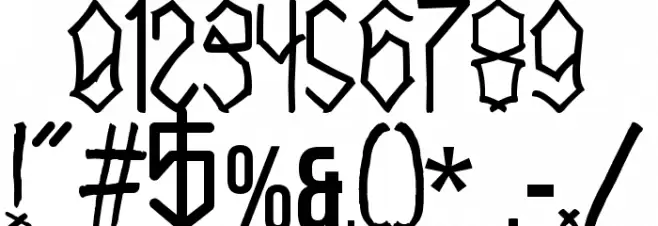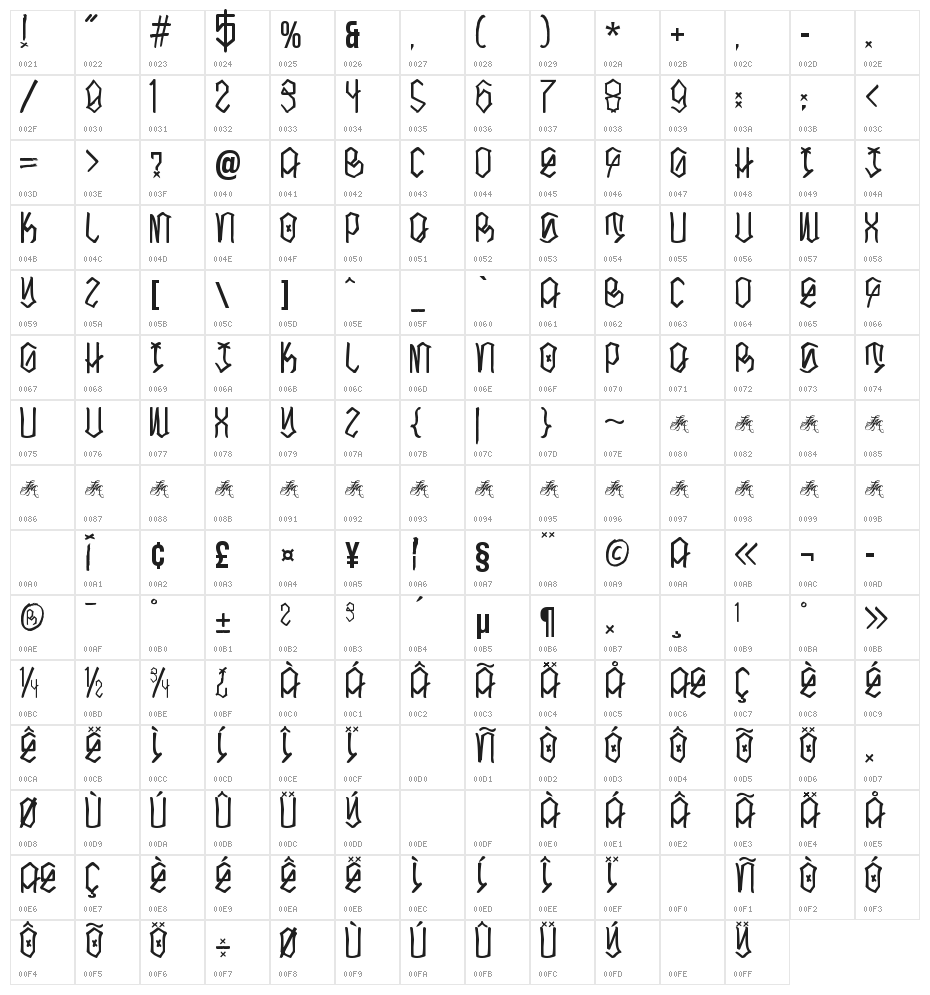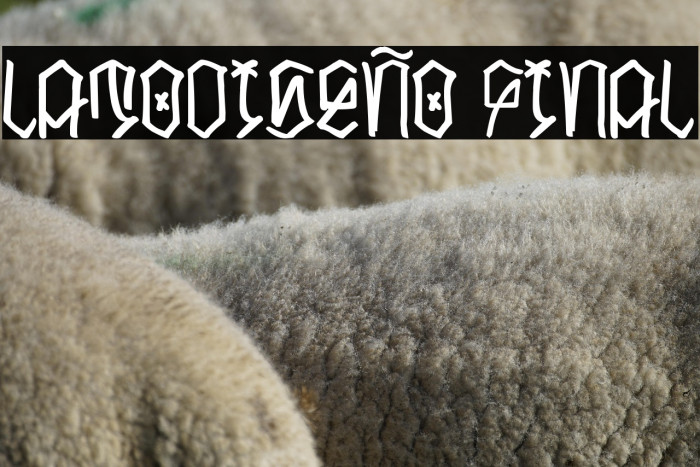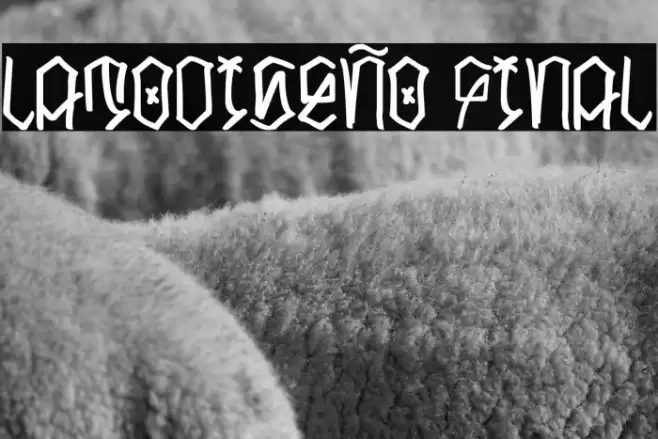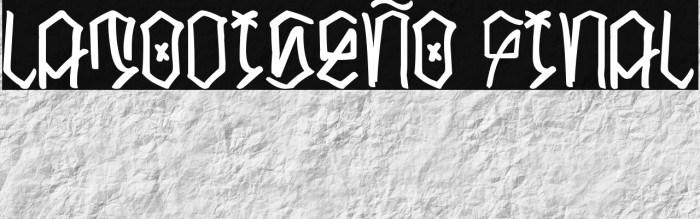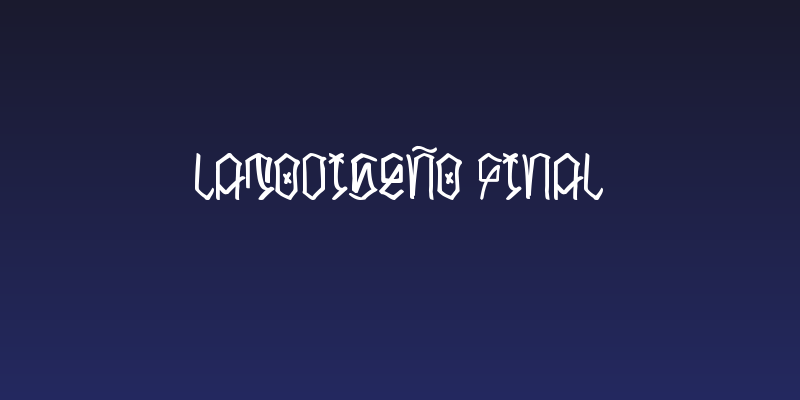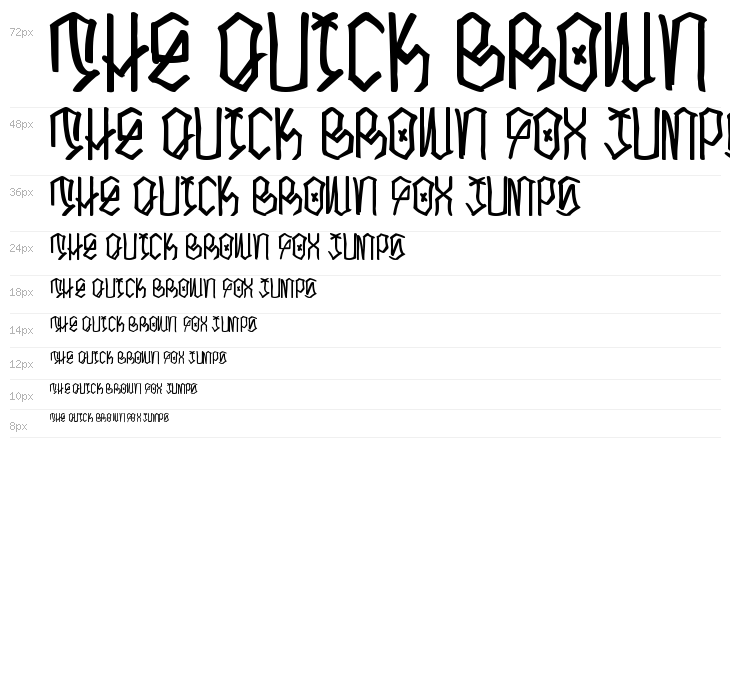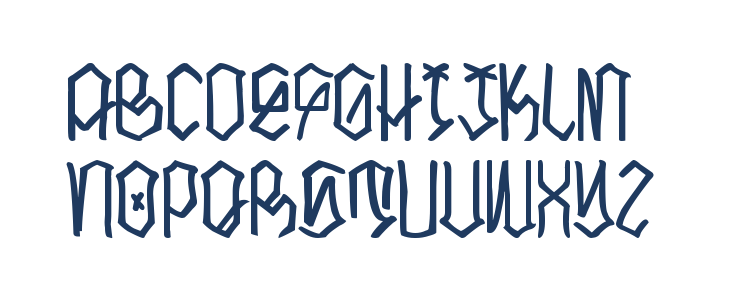
LATODISEÑO FINAL Font
LATODISEÑO FINAL Description
This font features a bold and angular design, reminiscent of graffiti or urban street art. The characters are constructed with sharp, geometric lines that give them a unique, edgy appearance. The uppercase and lowercase letters maintain a consistent style, with some characters incorporating unexpected angles and cuts that add to the overall dynamic feel. Numbers and special characters follow the same aesthetic, ensuring a cohesive look across all elements. The font's distinct style makes it stand out, making it ideal for projects that require a strong visual impact.
| Overall Style | Modern, Urban |
| Proposed Projects | Ideal for street art projects, urban-themed designs, album covers, posters, and branding that requires a bold statement. |